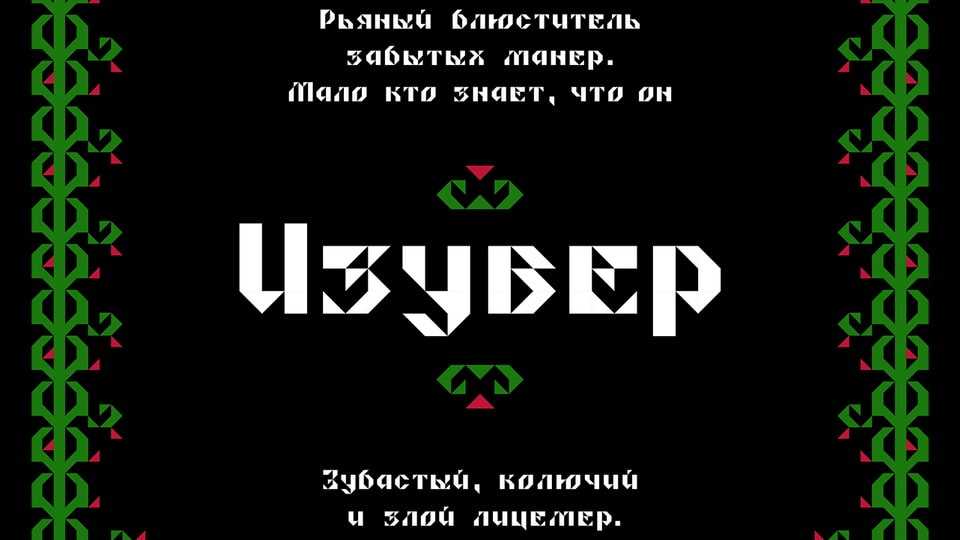
Download Izuver font, a bold, sharp geometric display typeface that exudes a sleek, cutting-edge attitude. The font is crafted with precise, angular shapes and razor-sharp lines, creating a modern, futuristic aesthetic.